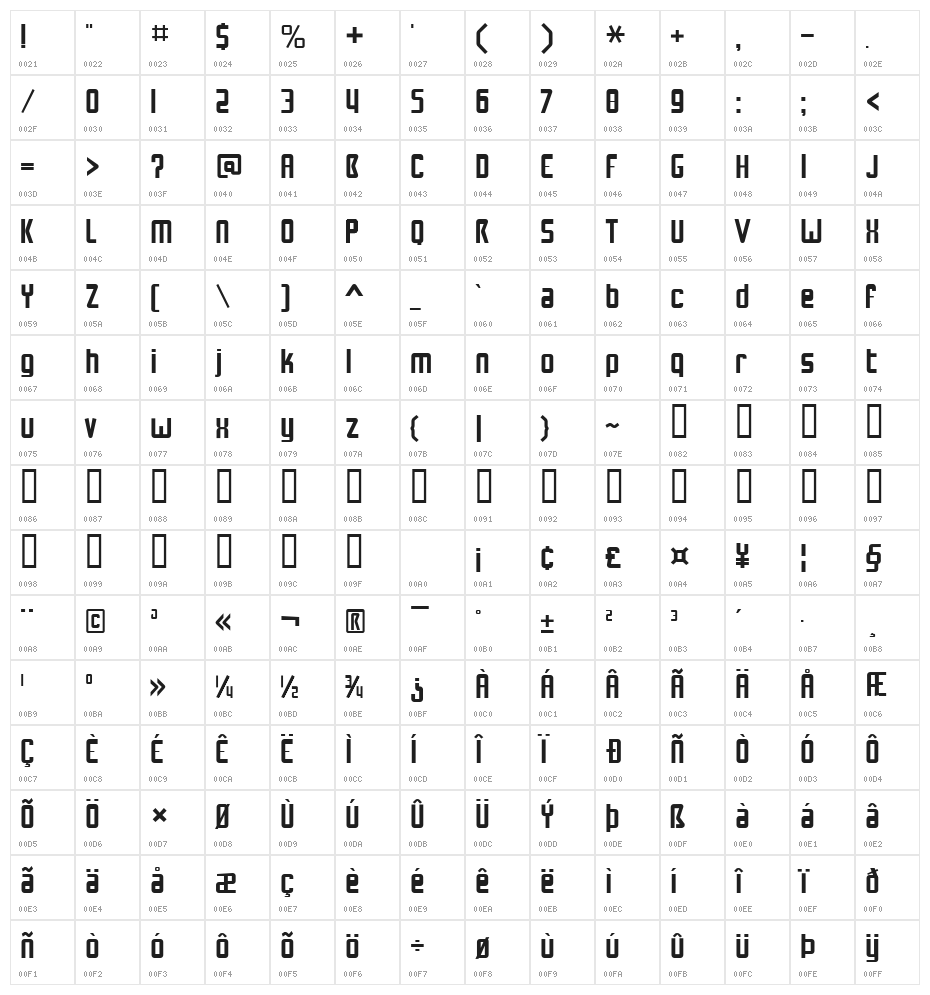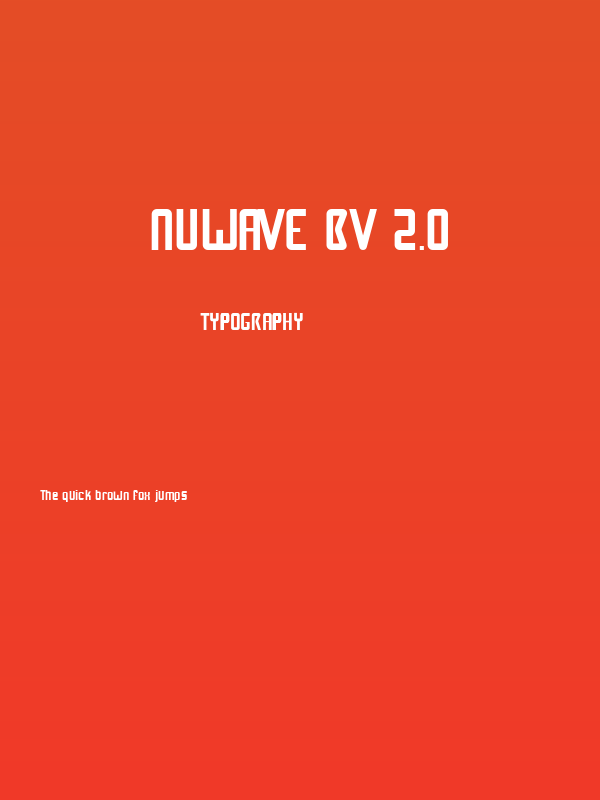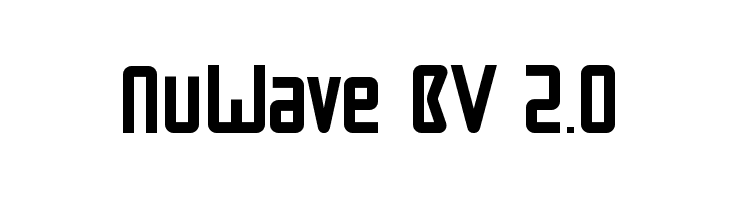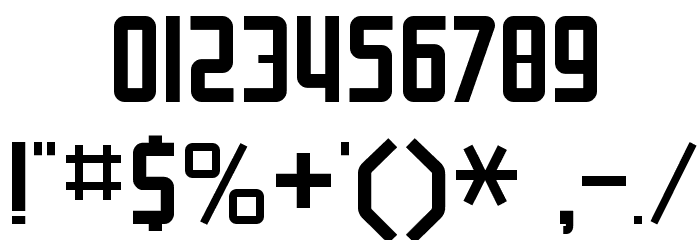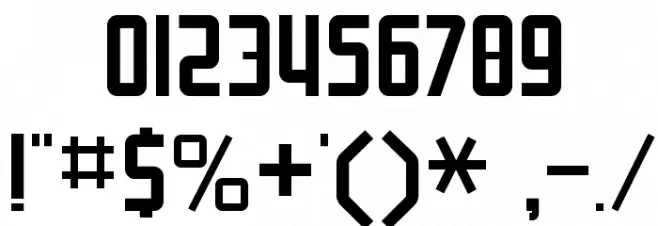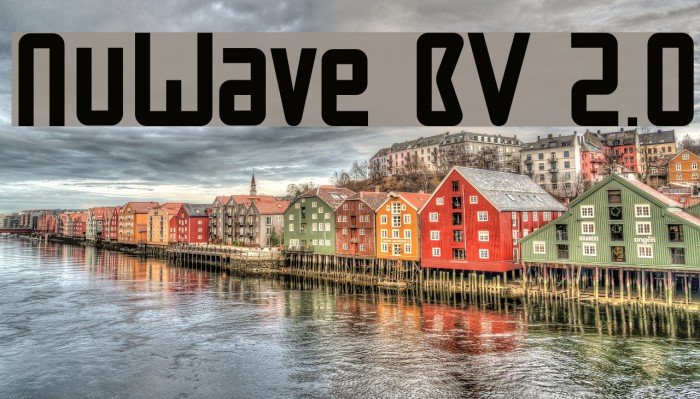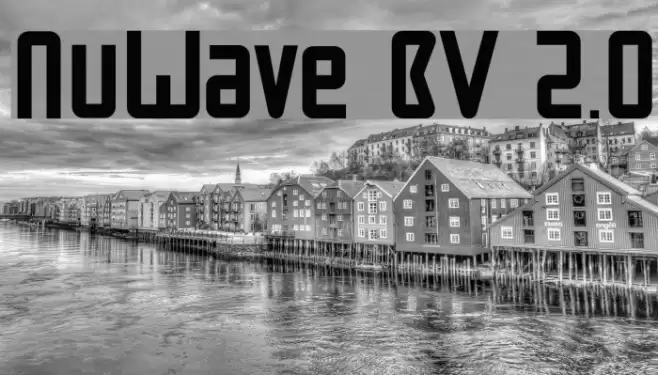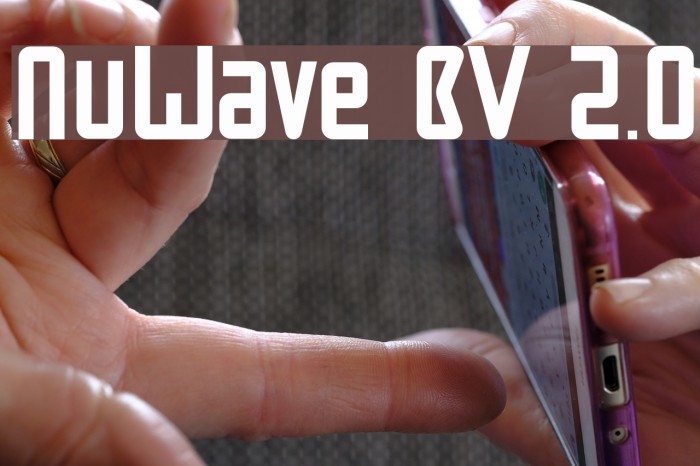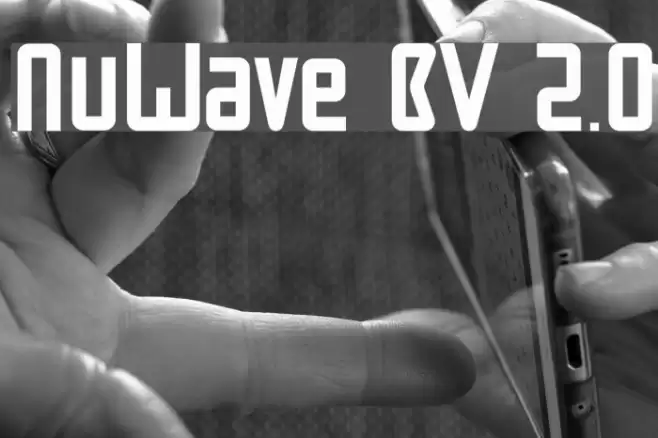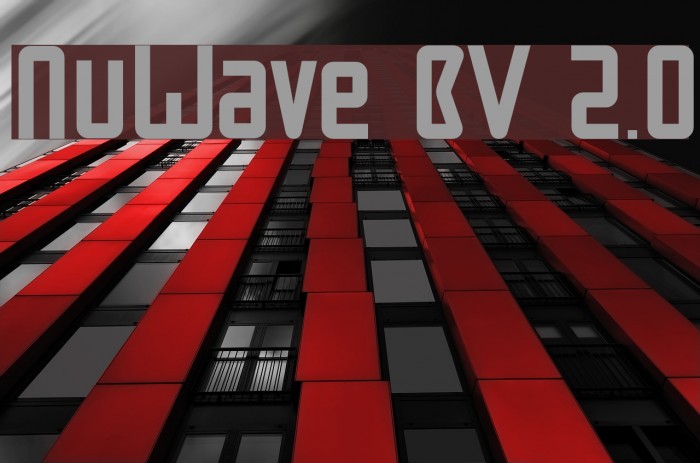
NuWave BV 2.0 Font
NuWave BV 2.0 Description
This font features a bold and geometric design with a modern aesthetic. The characters are constructed with straight lines and sharp angles, giving them a futuristic and technical appearance. The uppercase letters are particularly striking, with unique shapes that stand out, such as the angular 'A' and the distinctive 'R'. The lowercase letters maintain a consistent style, ensuring readability while preserving the font's unique character. The numerals are clear and bold, making them suitable for various applications. Special characters are included, with a design that complements the overall style of the font. This font is ideal for projects that require a modern and impactful look.
| Proposed Projects | Ideal for technology branding, futuristic posters, and modern web design. |